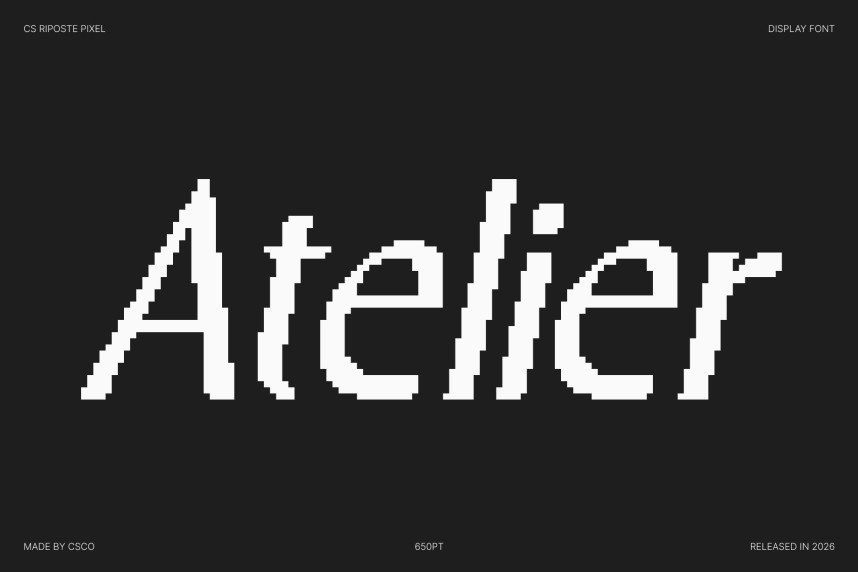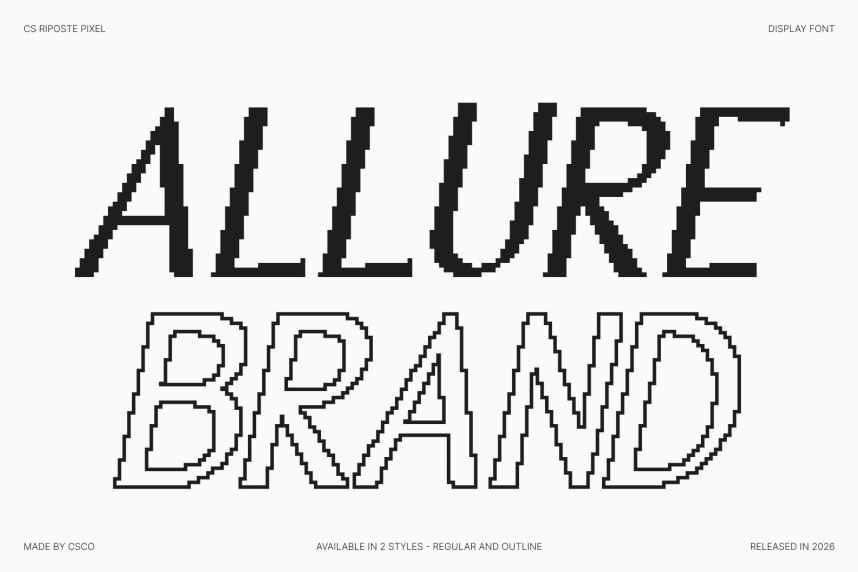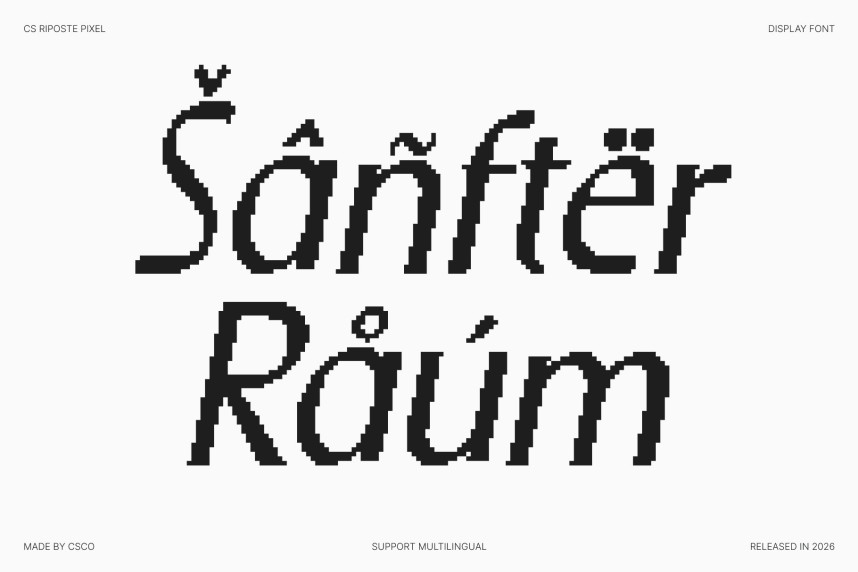
CS Riposte Pixel Font
CS Riposte Pixel Font – Fresh Modern Clarity with Digital Confidence Modern Sans Serif with Pixel-Driven Precision. This is a modern sans serif font designed with clean structure and contemporary clarity, enhanced by a subtle pixel-inspired character. Its balanced proportions and refined construction create a professional appearance that feels fresh, stylish, and visually confident. The pixel touch adds a digital personality that makes the font feel modern while nodding to retro screen aesthetics.